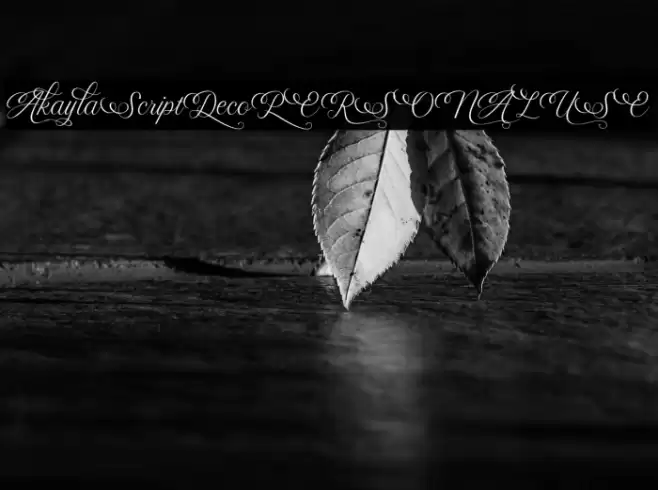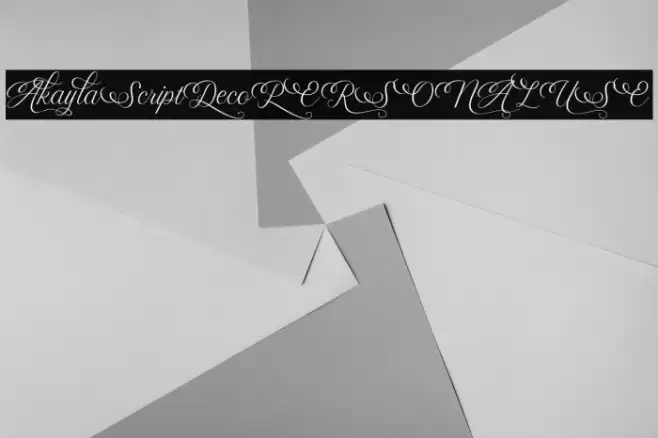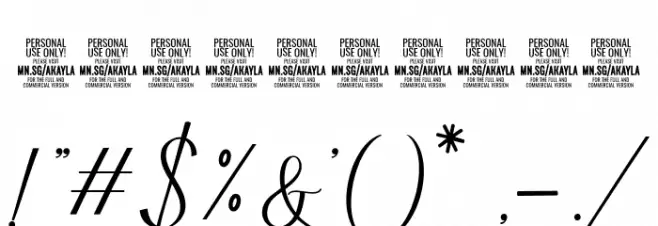
AkaylaScriptDecoPERSONALUSE Font
AkaylaScriptDecoPERSONALUSE Description
This font is an elegant and decorative script style, characterized by its flowing, intricate letterforms and elaborate swashes. The uppercase letters are particularly ornate, featuring extended flourishes that add a sense of sophistication and grandeur. The lowercase letters maintain a consistent fluidity, with smooth connections between characters, enhancing its cursive nature. The font includes a full set of numerals and a variety of special characters, each designed with the same attention to detail and decorative flair. This script font is ideal for projects that require a touch of elegance and artistry.
An elegant, decorative script font with intricate swashes and flowing letterforms from Regular fonts.
- Proposed Projects: Ideal for wedding invitations, elegant branding, luxury packaging, and artistic posters.
- Use Case: Logos, Invitations, Decorative Text